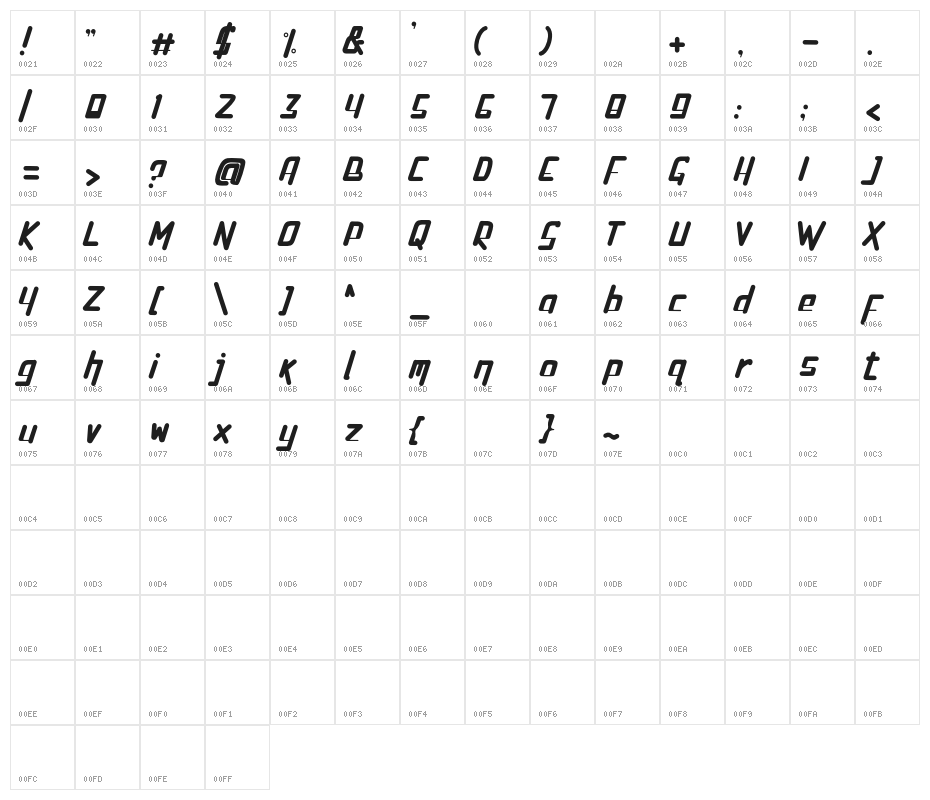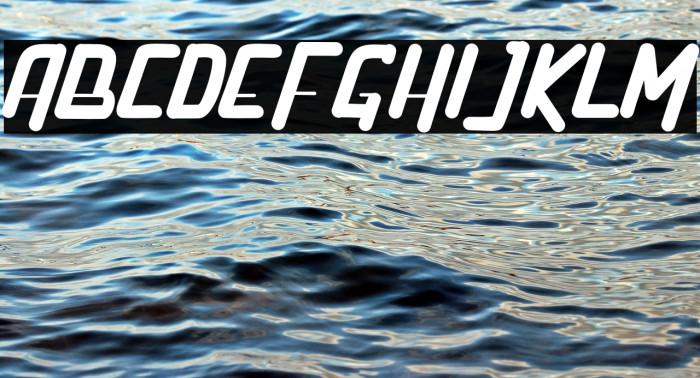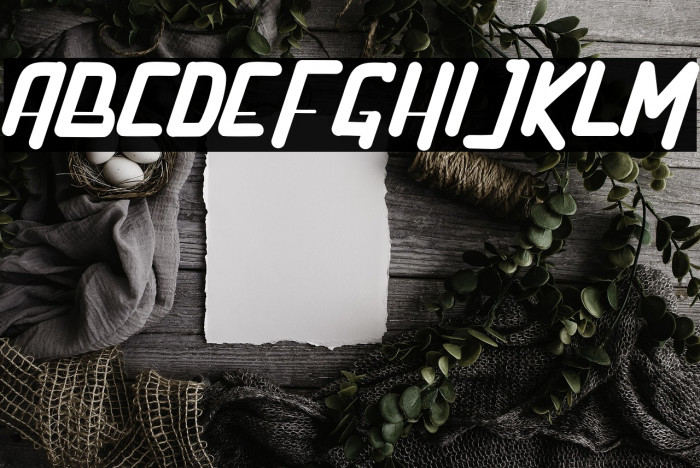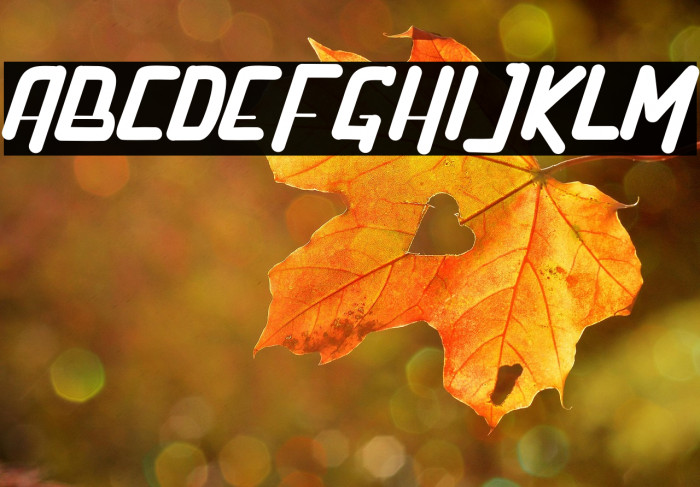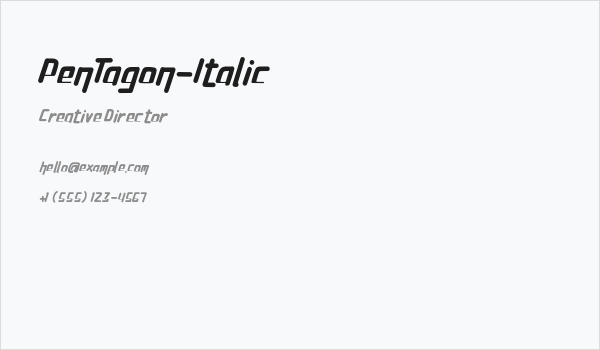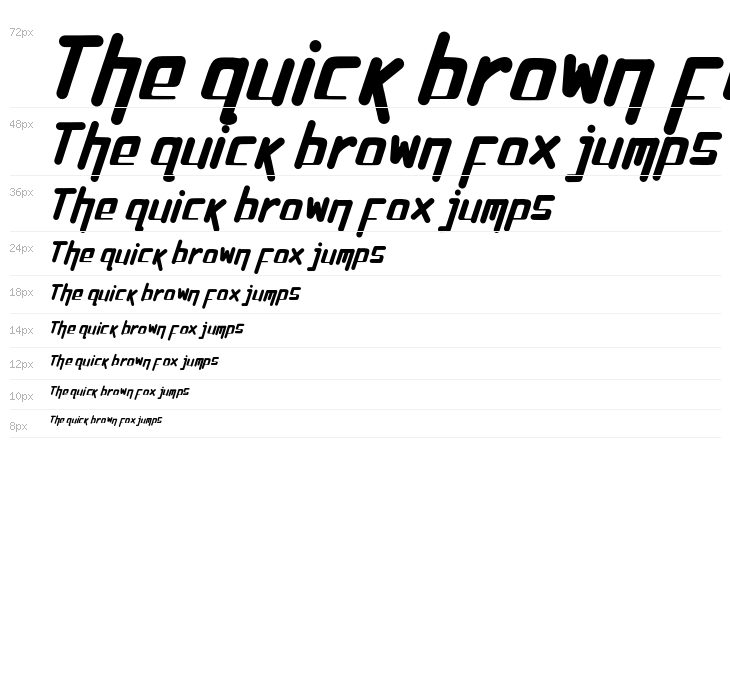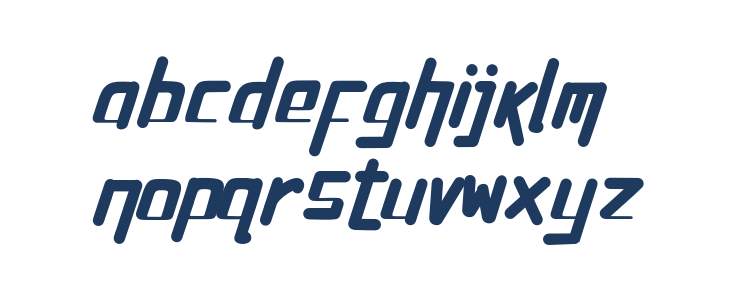
PenTagon-Italic Font
PenTagon-Italic Description
This font features a dynamic and modern italic style with a bold presence. The characters are slightly slanted, giving a sense of motion and energy. The strokes are thick and consistent, providing a strong visual impact. The design includes a mix of rounded and angular elements, creating a unique and contemporary look. The uppercase and lowercase letters maintain a cohesive style, while the numerals and special characters integrate seamlessly with the overall design. This font is ideal for projects that require a bold and modern aesthetic.
| Proposed Projects | Ideal for branding, advertising, sports team logos, and dynamic poster designs. |